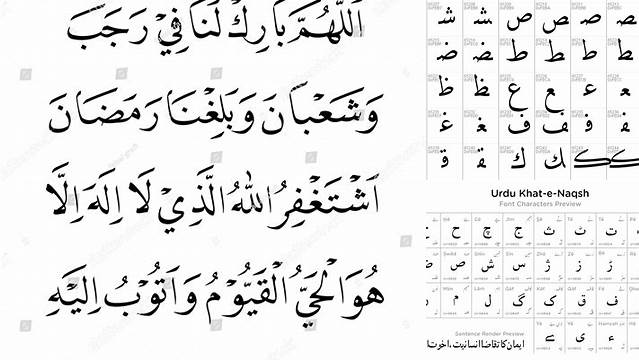
What is Khat e Naskh and Why Should You Care?
First things first, what exactly is Khat e Naskh? Well, it's a highly regarded calligraphic style of the Arabic script. It's known for its elegant, flowing lines and its use in religious texts, particularly the Quran. Think of it as the classic look of Arabic writing – the one you see in mosques, historical documents, and beautiful artwork. The beauty of Khat e Naskh lies in its balance and grace. It’s designed to be both readable and aesthetically pleasing, making it a top choice for everything from formal documents to creative projects. Now, why should you care? If you're working on any project that involves Arabic text, whether it's a website, a design project, or simply personal correspondence, using a Khat e Naskh font can add a touch of sophistication and authenticity. It's a way to connect with the rich cultural heritage of the Arabic world and to make your work stand out. Using the right font can completely change the look and feel of your work, and Khat e Naskh is one of those fonts that always makes a statement. Also, these fonts are not only for professional designers. If you're interested in calligraphy, learning a new language, or just adding a unique flair to your personal projects, finding a Khat e Naskh font free download can open up a world of creative possibilities. Imagine crafting beautiful invitations, designing eye-catching social media posts, or even creating your own digital art. The possibilities are endless! So, whether you’re a seasoned designer or a complete beginner, understanding and utilizing Khat e Naskh can elevate your creative game.
Finding the right font also ensures your message is communicated effectively. Different fonts have different personalities. Khat e Naskh has a reputation for its elegance and authority. This can bring more value to your work. So it’s worth understanding how these fonts are used and where you can get access to them. Also, the availability of Khat e Naskh font free download options means you can experiment without breaking the bank. This makes it accessible for everyone, regardless of their budget. This is especially great for those who are learning and experimenting with different styles. You can try out various fonts to find the one that best suits your needs and preferences. This hands-on experience is invaluable for anyone who wants to get better at design or calligraphy. Also, having these fonts at your disposal lets you incorporate them into various projects. This can include designing brochures, creating logos, or designing social media posts. The use of the right font can make your work more appealing and professional. This will increase the overall quality of your work. You'll also be able to explore the rich tradition of Arabic calligraphy. This is a bonus for anyone interested in cultural heritage. This adds a layer of depth and meaning to your work. You can share a part of Arabic culture through your creations. So if you are looking for a Khat e Naskh font free download, then you are sure to find many ways to use these fonts and to add an impressive touch to your work.